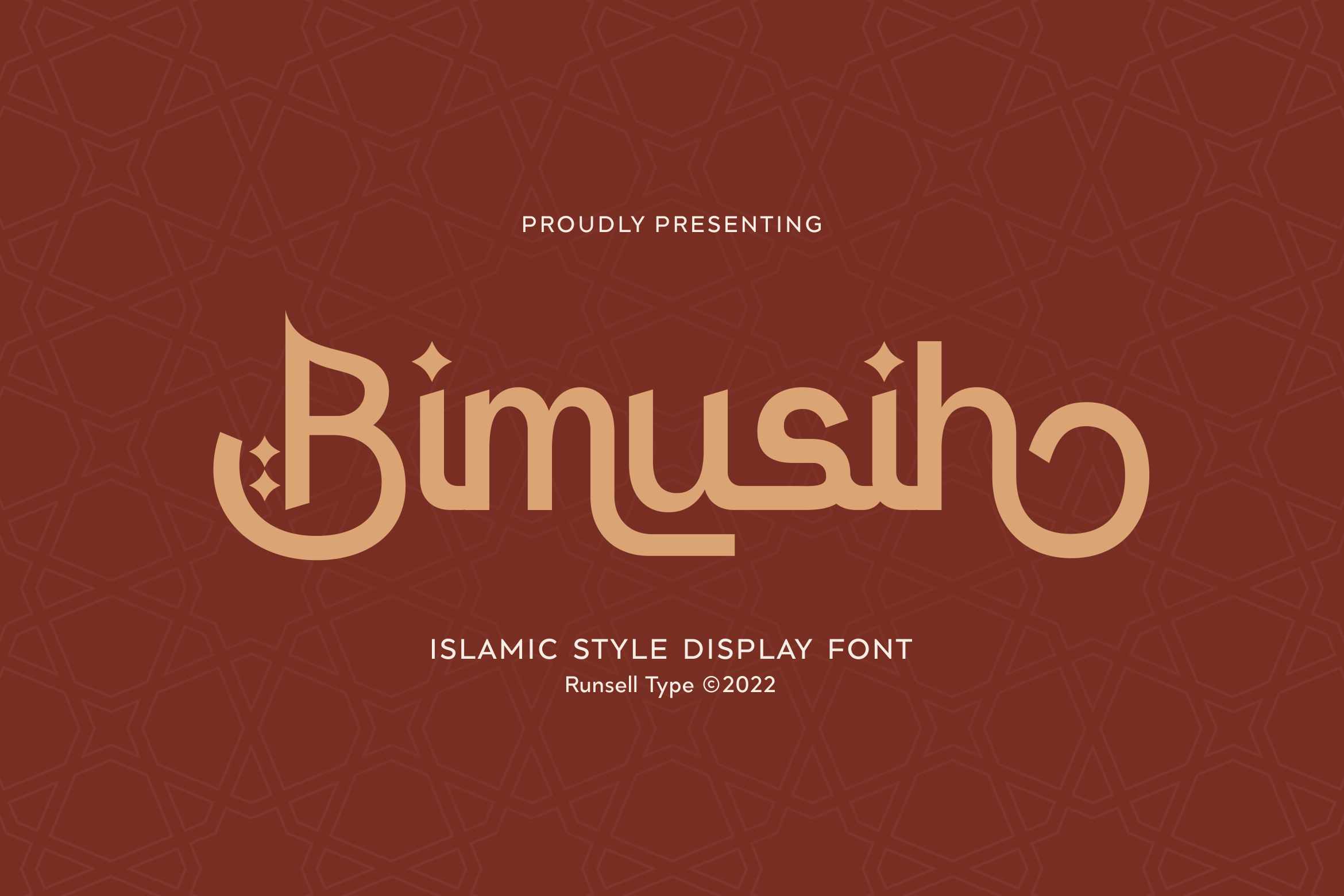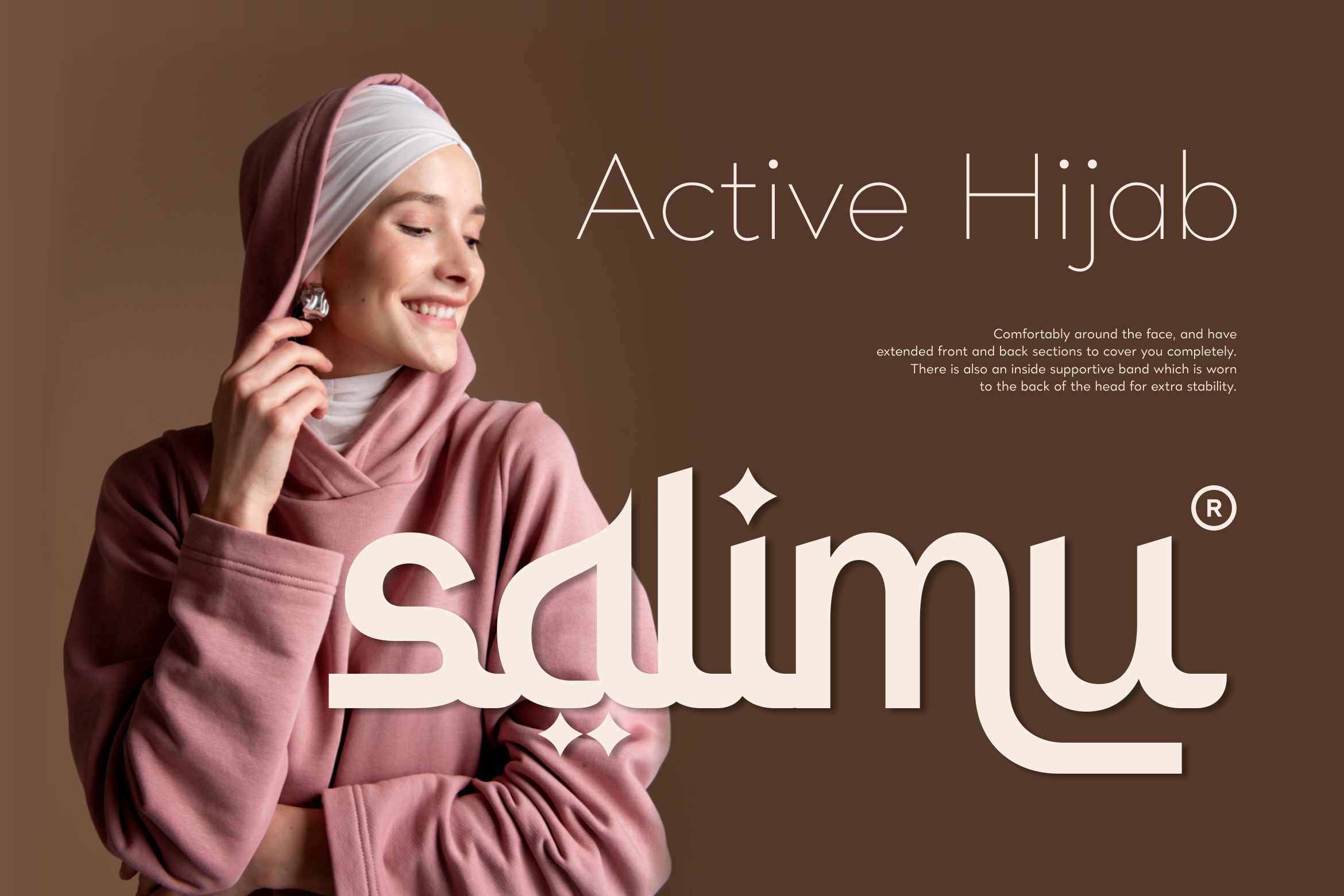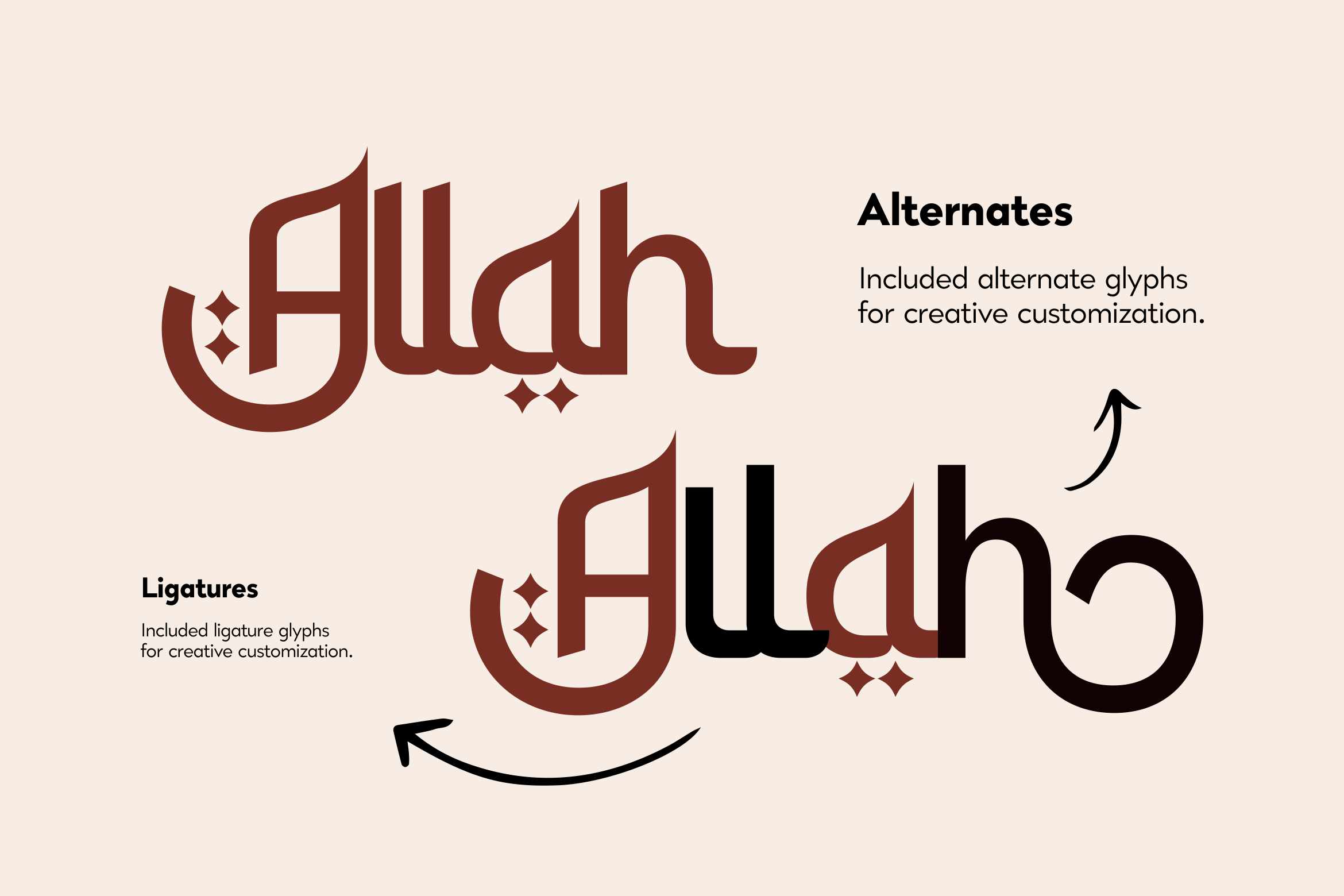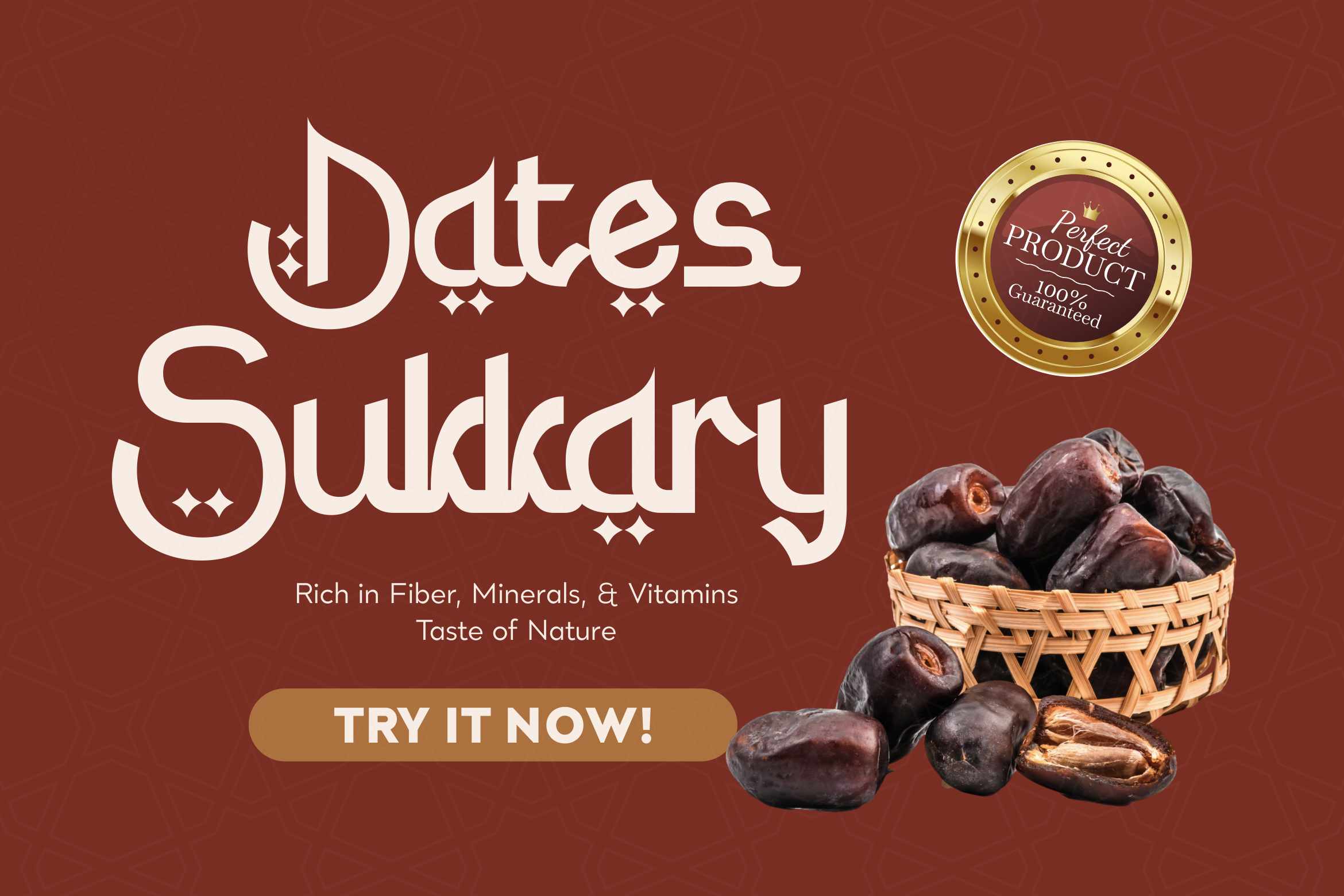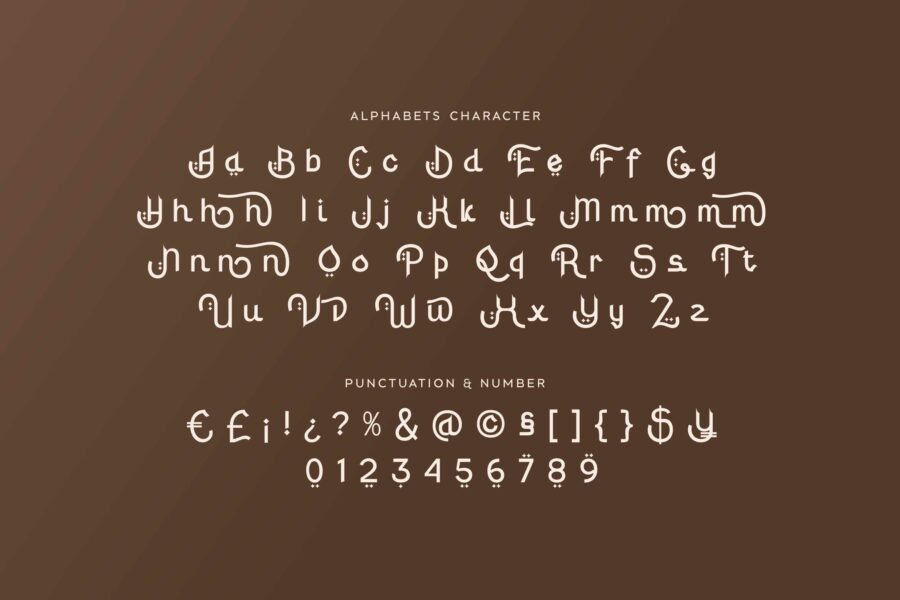
Bimusih is an Islamic style display font that blends elegant geometric forms with traditional Middle Eastern ornamentation. Its unique strokes, adorned with subtle dot and diamond accents, create a visual harmony that pays homage to Arabic calligraphy while remaining distinctly modern and readable in Latin script. The typeface is ideal for branding, packaging, and design projects that want to evoke a sense of spirituality, heritage, and cultural richness.
With stylistic alternates and special ligatures included, Bimusih offers versatility and creative freedom. Whether you’re crafting a hijab product logo, Islamic event poster, or Middle Eastern-themed label, this font adds a meaningful visual identity to your work. Its curved terminals and symmetrical balance make it a perfect choice for faith-based and culturally resonant graphic expressions.
Bimusih